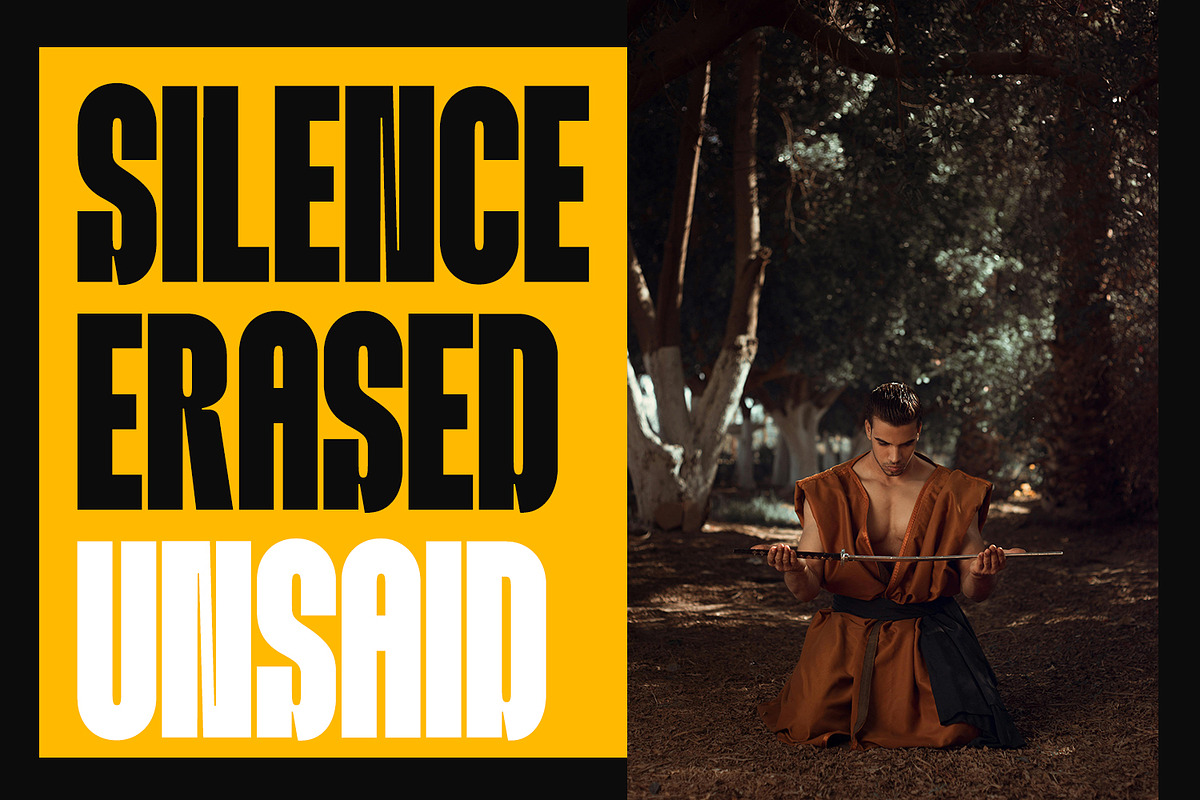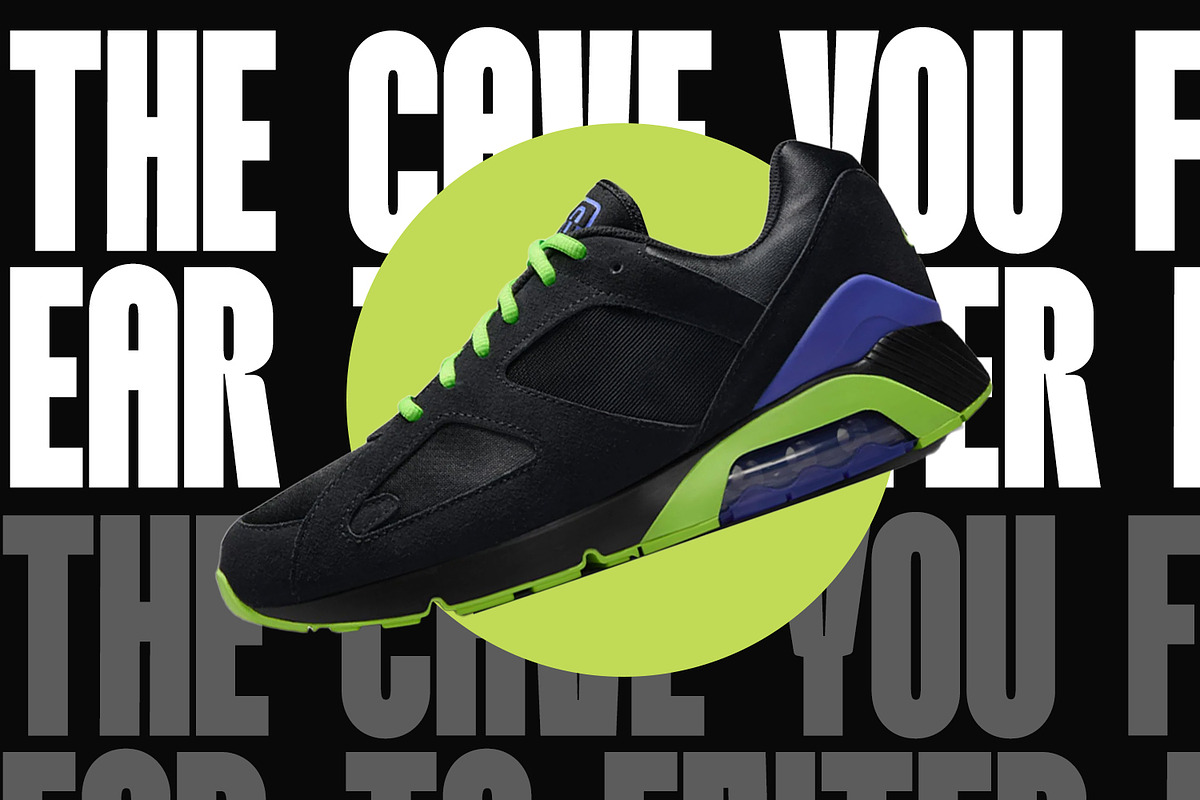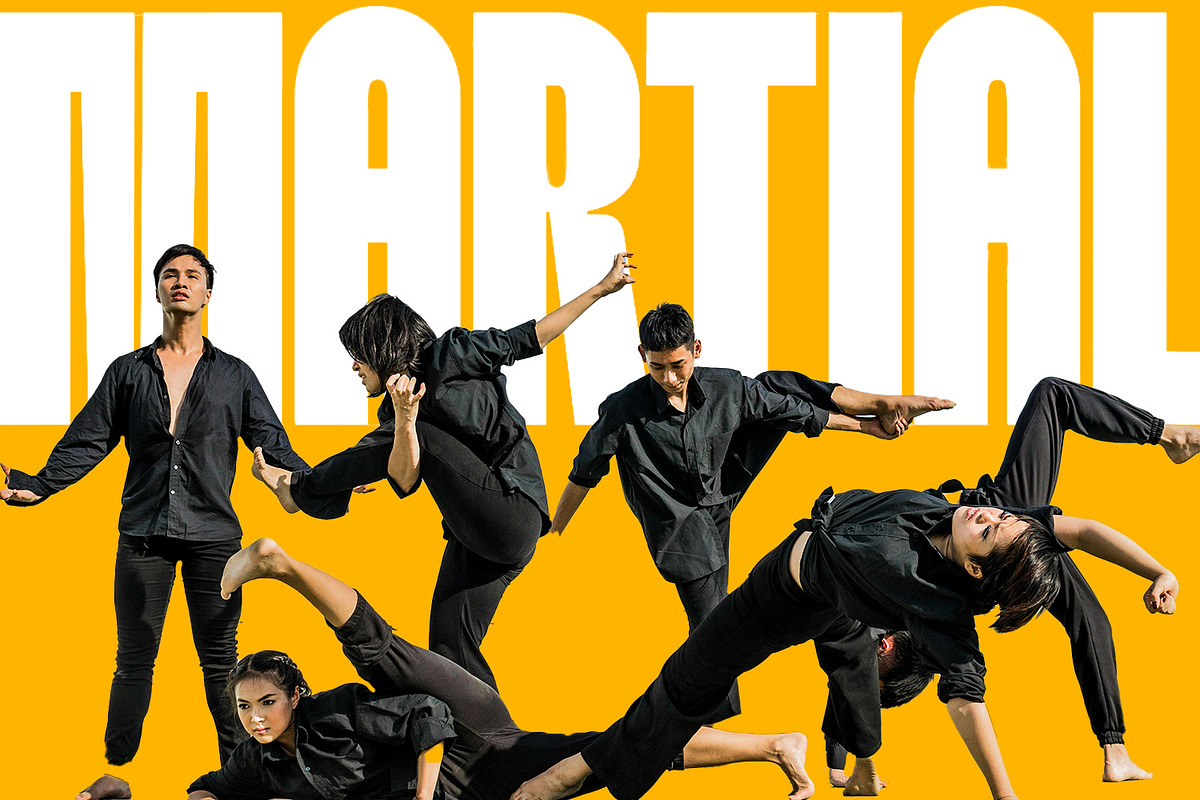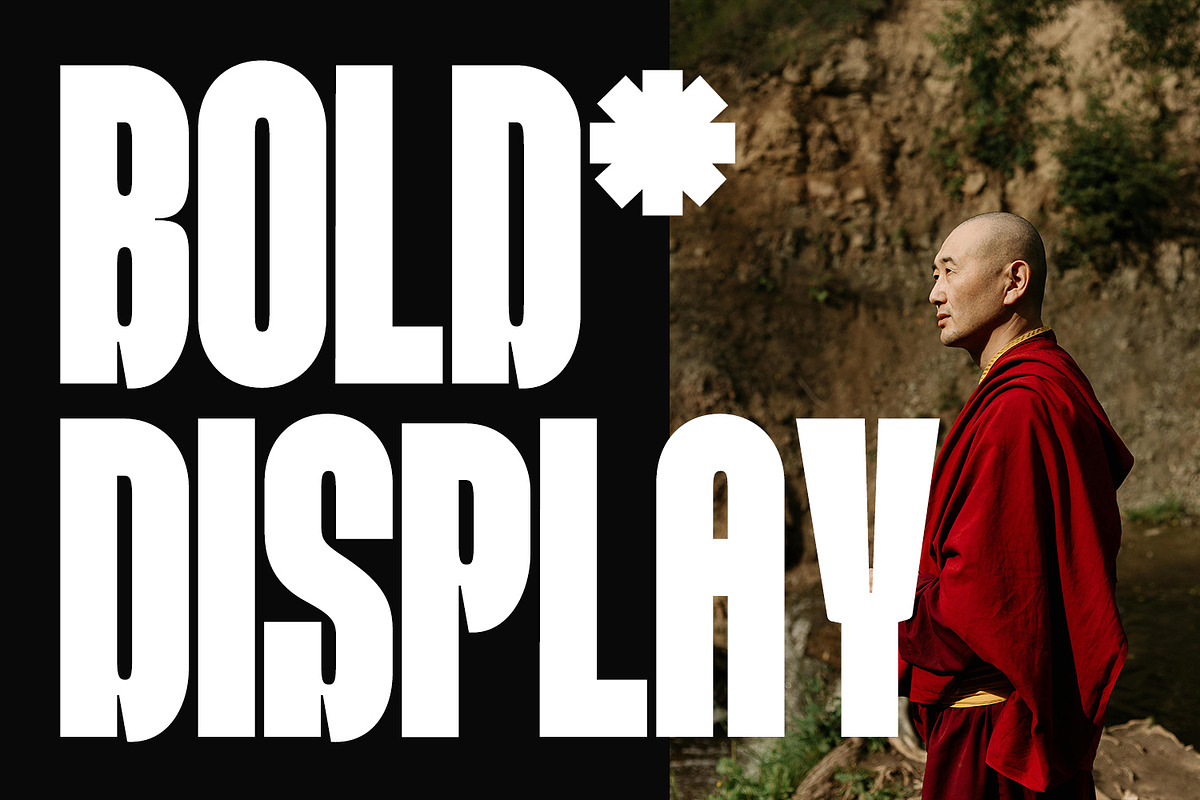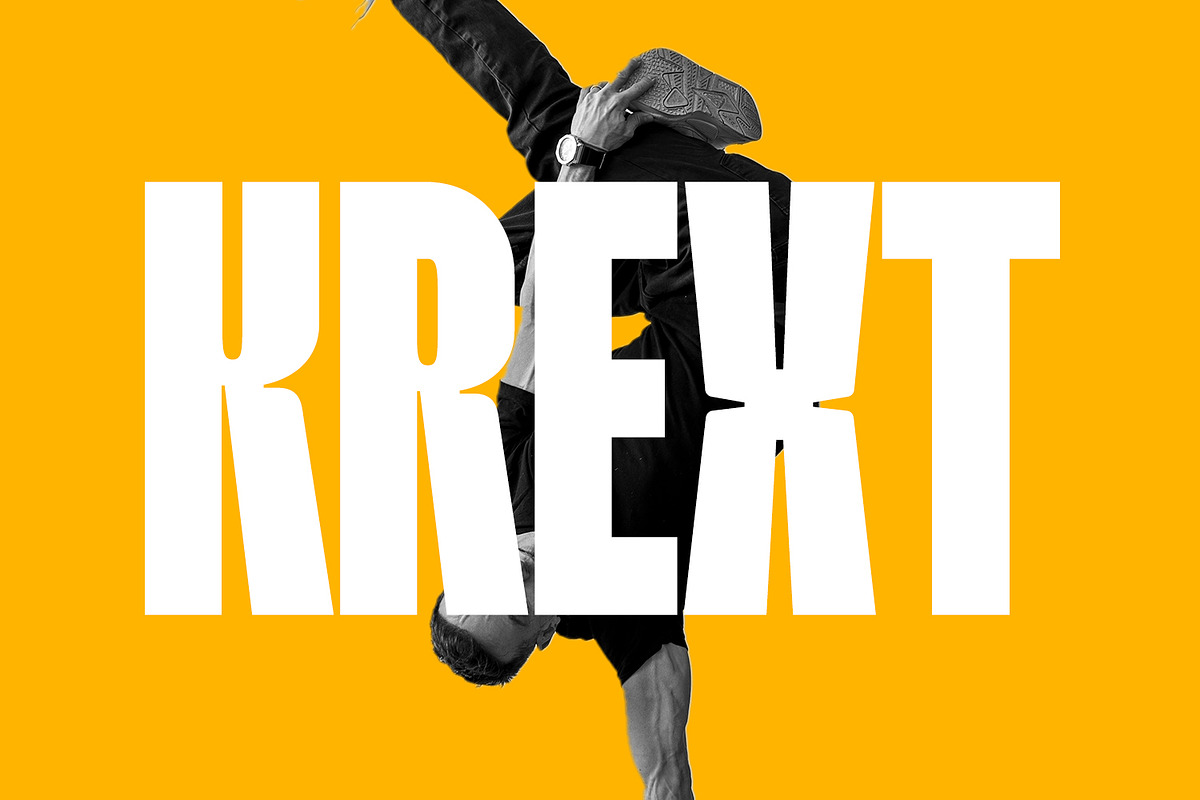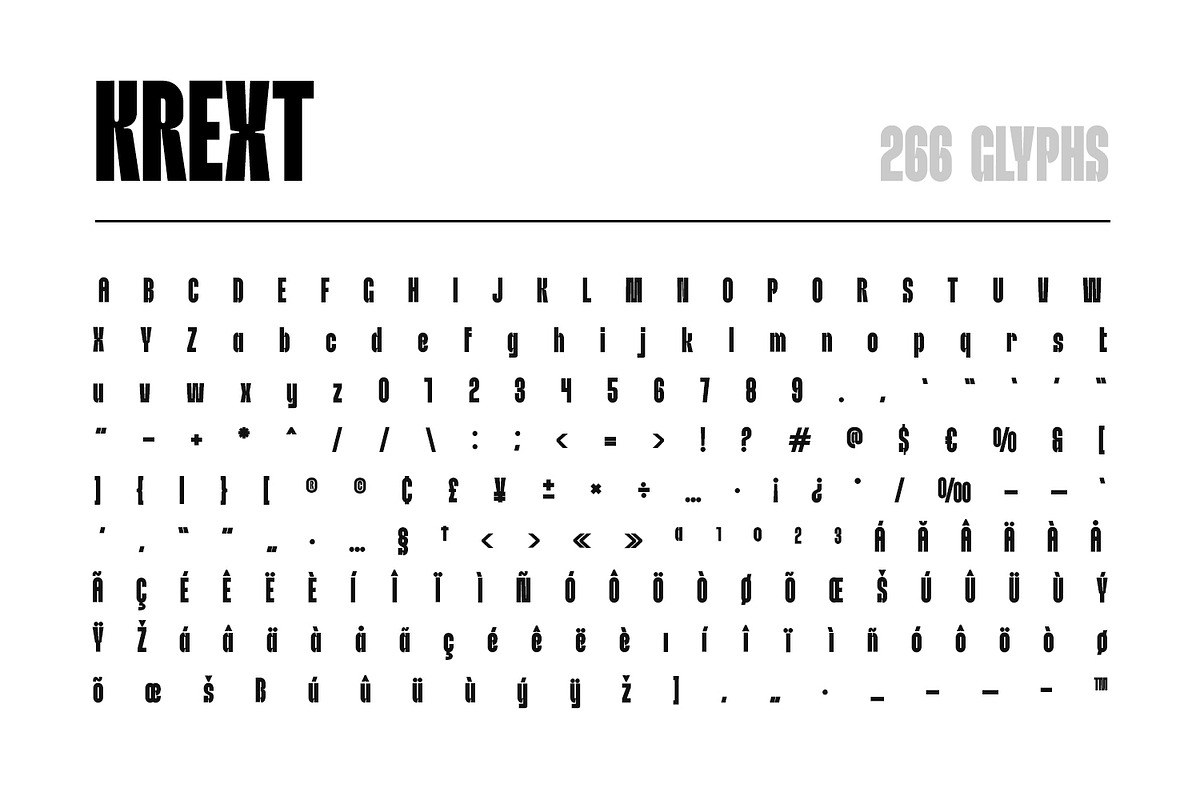
Krext Display
Krext is a modern display typeface designed for bold visual impact. Featuring sharp, clean edges and a contemporary aesthetic, Krext is built to elevate your designs across a wide range of applications.
With 2 versatile weights – Bold and Extra Bold – Krext adapts seamlessly to your creative needs, from subtle branding to commanding headlines.
Krext offers precision and power in every character, making it an ideal choice for designers who want their typography to stand out.
Modern. Bold. Unmistakable. That’s Krext.